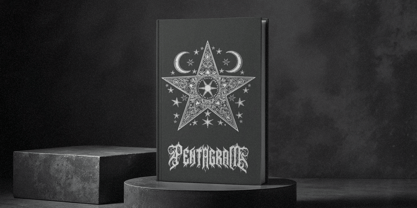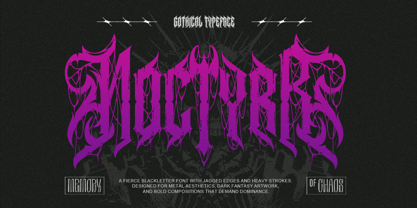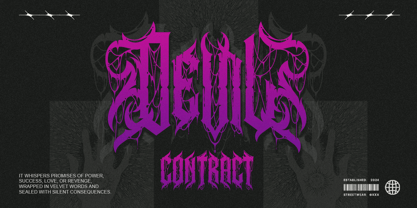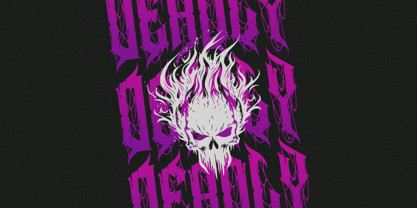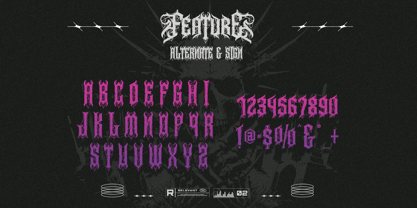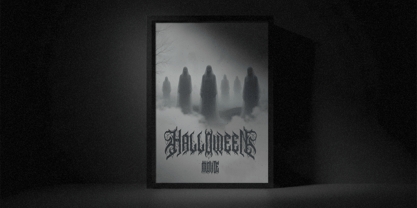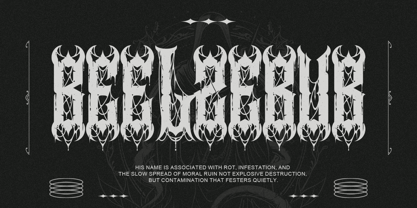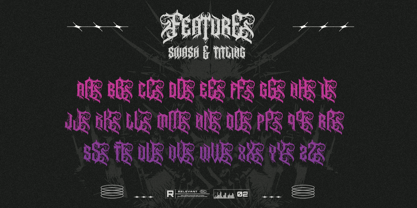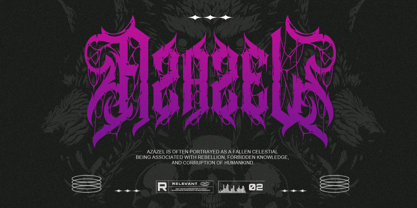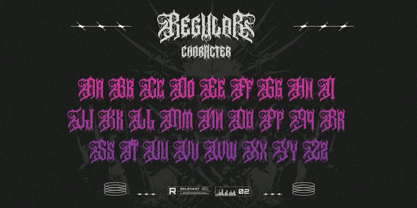
Notyrr
by Letterara
The Notyrr Font Family was designed by Thomas Aradea and published by Letterara. Notyrr contains 2 styles and family package options. More about this family
Enter the abyss of unrelenting darkness with Noctyrr, a savage blackletter font forged in chaos, ritual, and raw metal energy. Born from fractured cathedral spires and drenched in nocturnal fury, Noctyrr is not merely written—it is unleashed. Every jagged stroke tears through silence. Every blade-like serif drips with intensity. This is typography sharpened into a weapon. Designed with aggressive edges, heavy vertical weight, and venomous symmetry, Noctyrr embodies extreme gothic aesthetics and modern metal brutality. Perfect for band logos, album covers, dark fantasy titles, horror visuals, underground branding, tattoo lettering, and cinematic compositions that demand dominance, this font commands immediate attention with unapologetic force. Noctyrr transforms words into sigils of power—each glyph carved like a relic of forbidden scripture, each letter radiating chaos and authority. Where darkness gathers and noise becomes legend, Noctyrr stands at the throne of shadow.
Designers: Thomas Aradea
Foundry: Letterara